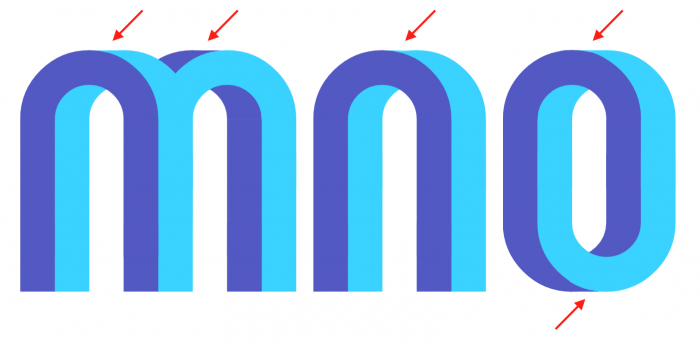
This font reminds me of the Penrose shapes that were created by the artist Oscar Reutersvärd in 1934…
What a charming proposal, I like it a lot! BTW, I think you could improve a bit the 3D "impossible" sensation adding a little square on the inner colour curves to make them horizontals, like I show in the sample.
Quite a nice use of colors, almost has the style of a mobius strip
Interesting twists. Cool.
Fabulous work @architaraz, good to see you back here! The fact that the upper and lower case twist in different ways makes it even more interesting.
@four Thanks. Yes, had to differentiate UC with the LC somehow.
Update 21.07.2022 This font's been renamed to KD Emes (emes means not, non, im... in my language)
It hurts my brain
The V looks like a U.